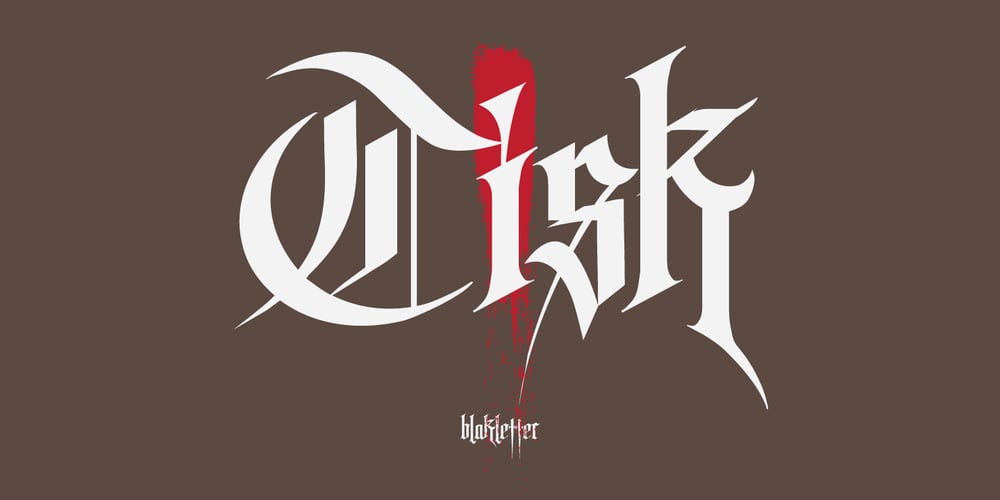
Tisk Font Family was designed by Sigit Nur Wicaksono and published by Gittype. Tisk contains 1 styles and family package options. Tisk is a superb blackletter font. The Blackletter typeface (also sometimes referred to as Gothic, Fraktur or Old English) was used in the Guthenburg Bible, one of the first books printed in Europe. This style of typeface is recognizable by its dramatic thin and thick strokes, and in some fonts, the elaborate swirls on the serifs. Use this font for any crafting project that requires a personalized look!